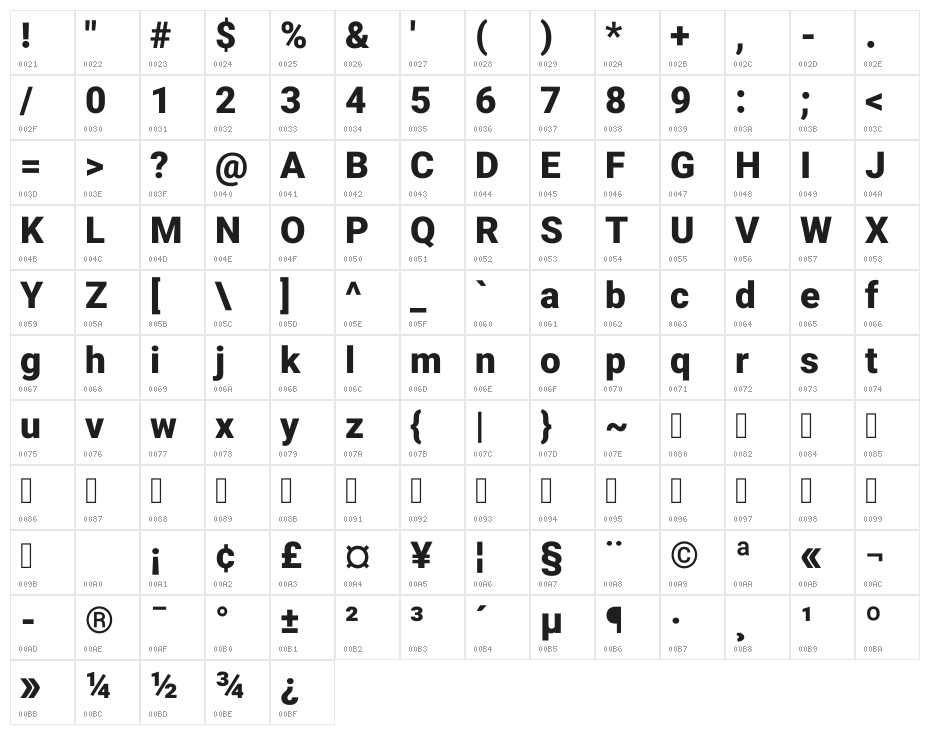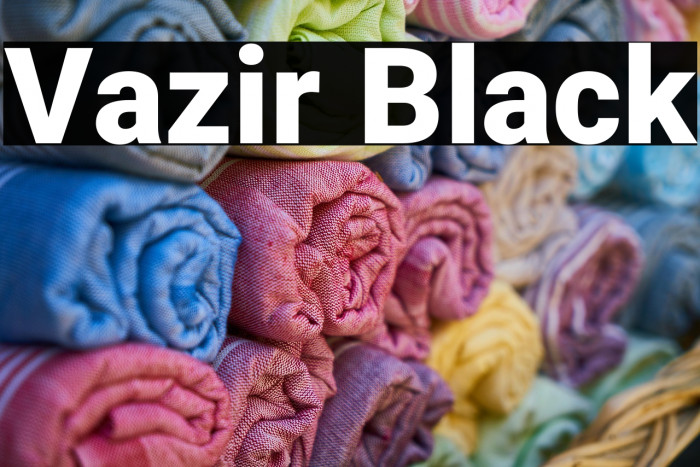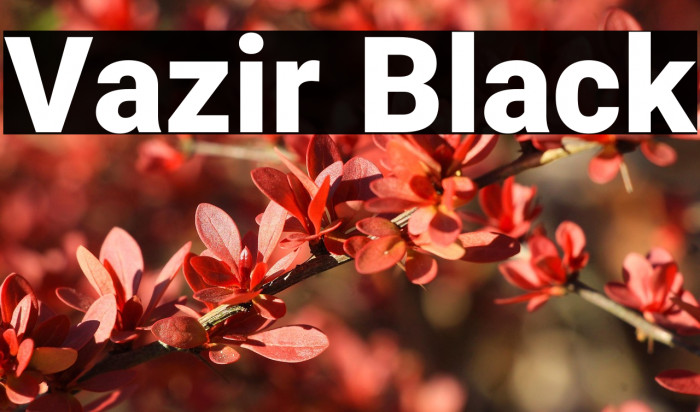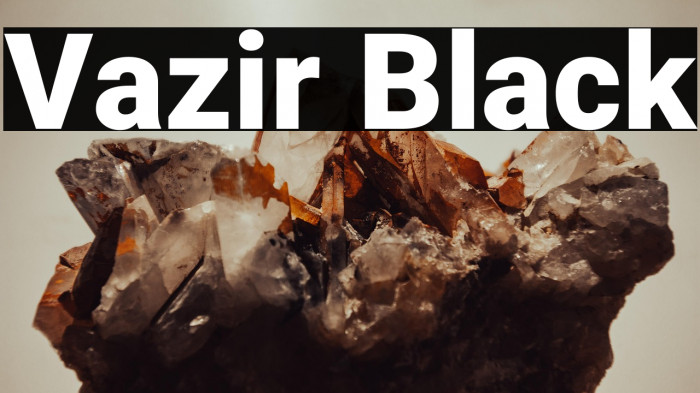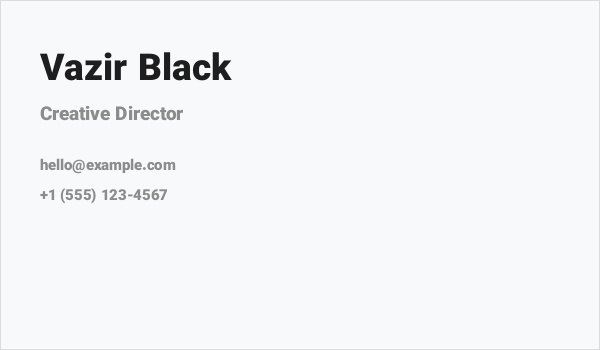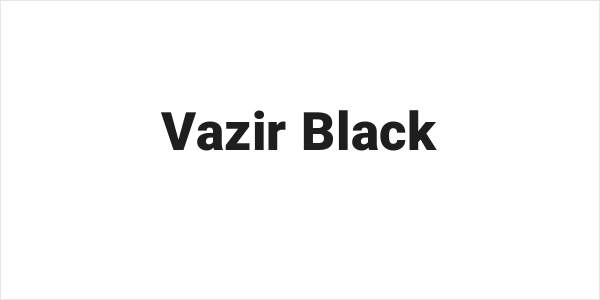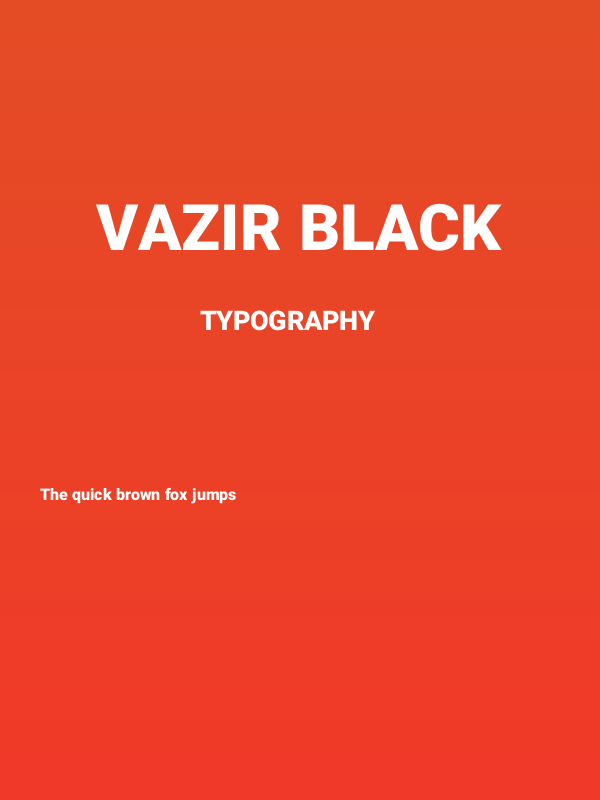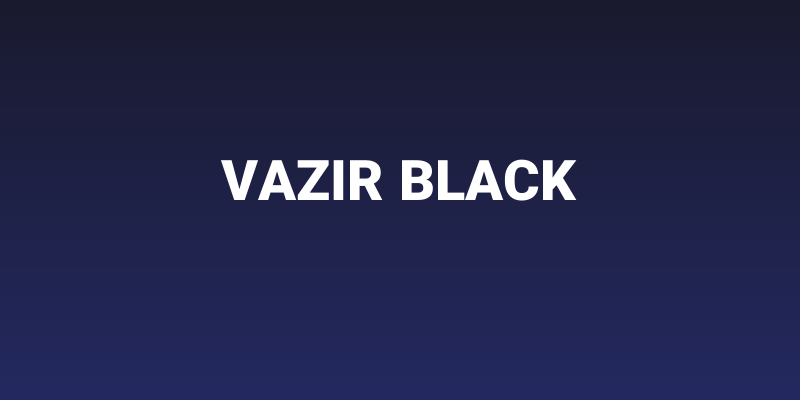
Vazir Black Font
Vazir Black Description
This font features a bold and robust design with clean, straight lines and a modern aesthetic. The characters are evenly spaced, providing a balanced and harmonious appearance. The uppercase and lowercase letters maintain a consistent weight, contributing to a cohesive look. The numerals are clear and legible, making them suitable for various applications. The special characters are well-defined, ensuring they stand out while maintaining the overall style. This font's simplicity and strength make it versatile for both digital and print media.
| Proposed Projects | Ideal for headlines, branding, advertising, and digital content where a strong, modern presence is desired. |